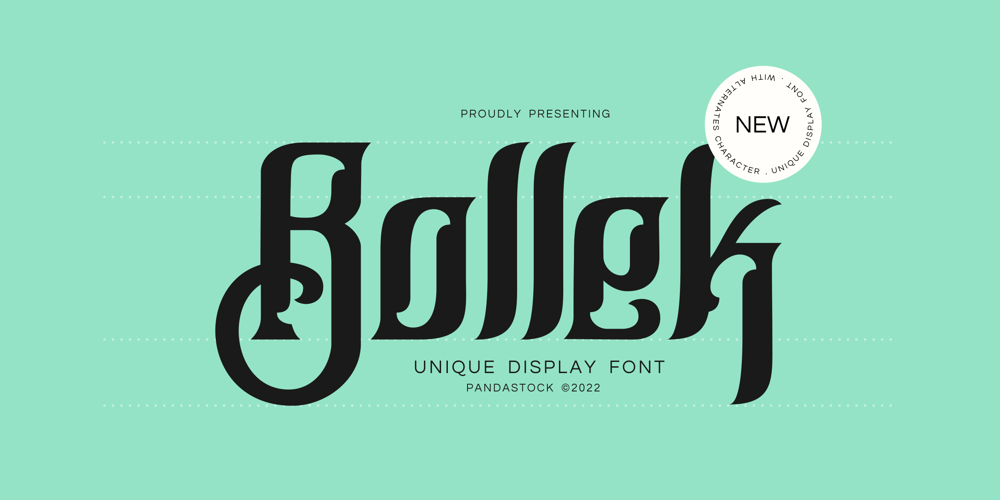
Bollek
Bollek font
Bollek Font Family was designed by Aulia Savira Putri and published by Pandastock. Bollek contains 1 styles and family package options. Bollek is unique fonts with visual elegance, smooth curves and beautiful ligatures clear, making your work look true and attractive.A very versatile font that works in both large and small sizes. This font is suitable for a wide variety of projects such as invitations, logo, branding, magazine, photography, card, product packaging, mugs, quotes, poster, label, signature and more.Font which is perfect for all business sectors including personal projects, studio, corporate, creative agency, industrial, company, etc.